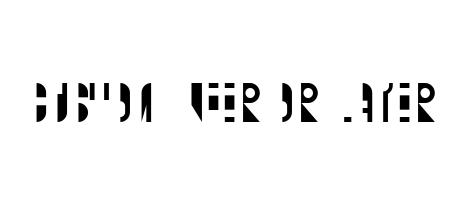
Custom Inferior Layer is a bold, geometric sans-serif font. Its distinct character forms are fragmented, creating a fractured, almost deconstructed aesthetic. The sharp angles and abrupt cuts give it a modern, almost brutalist feel, suggesting a sense of strength and disruption. It’s less about readability and more about creating a striking visual impact.